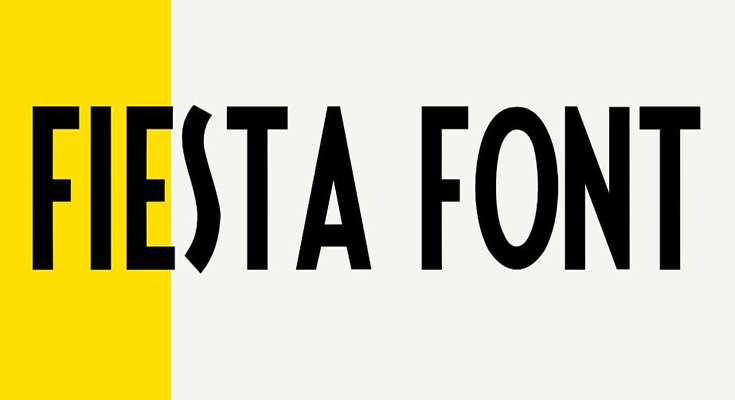
Fiesta Font is truly cool. It’s modern and memorable but with a fancy retro vibe. Awesome for travel, fashion, advertising, magazine layouts, and labels.
In this classic typeface, you’ll find a style that has a short line that makes it an ideal option for a variety of designs and can be paired with other fonts for a variety of projects.
The height of this font is larger as compared to the standard size. While the width feels low compared to the standard size.
Style: | Retro, Display, Fancy |
Font Designer: | Barmee |
This typeface has fulfilled all their needs in the field of design and many designers are using this font in their regular design projects like logo design, banners, book covers, branding projects, product packaging, and many more.